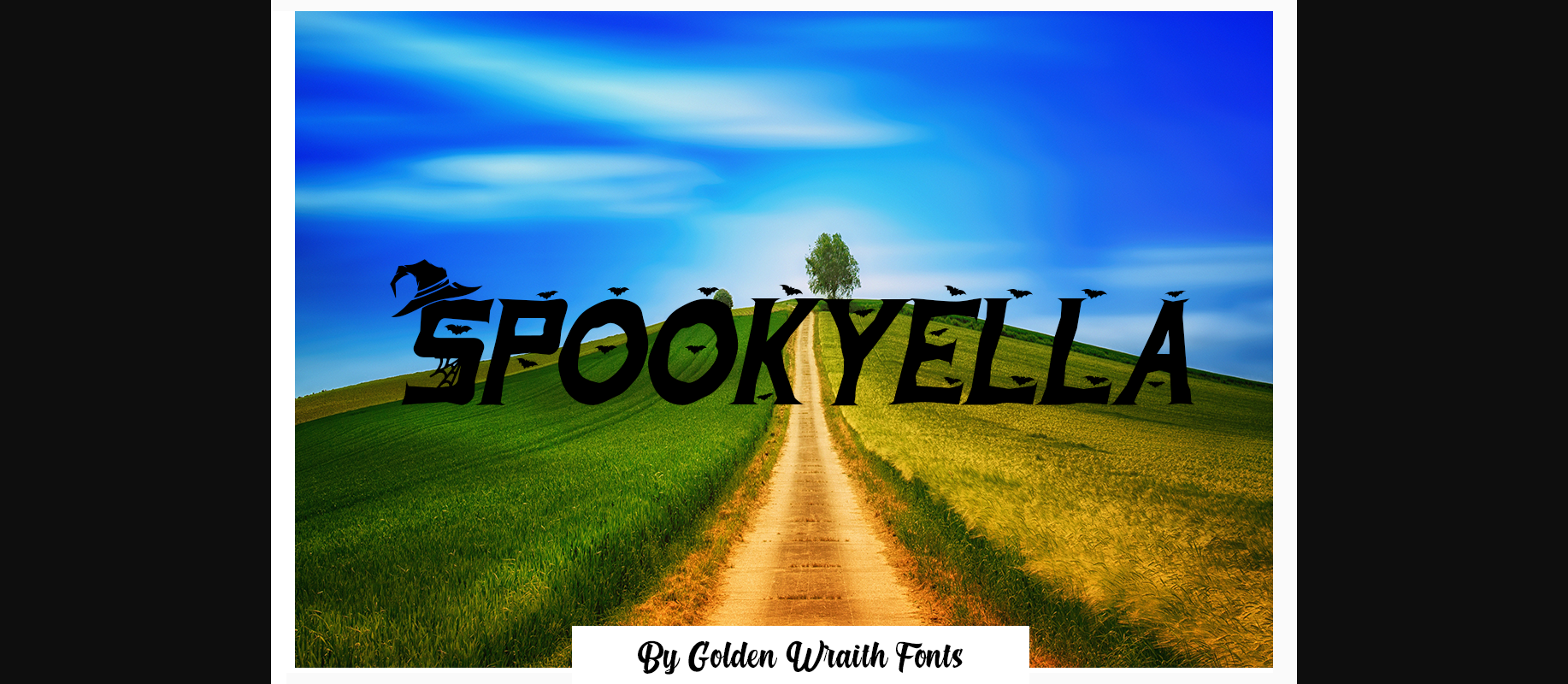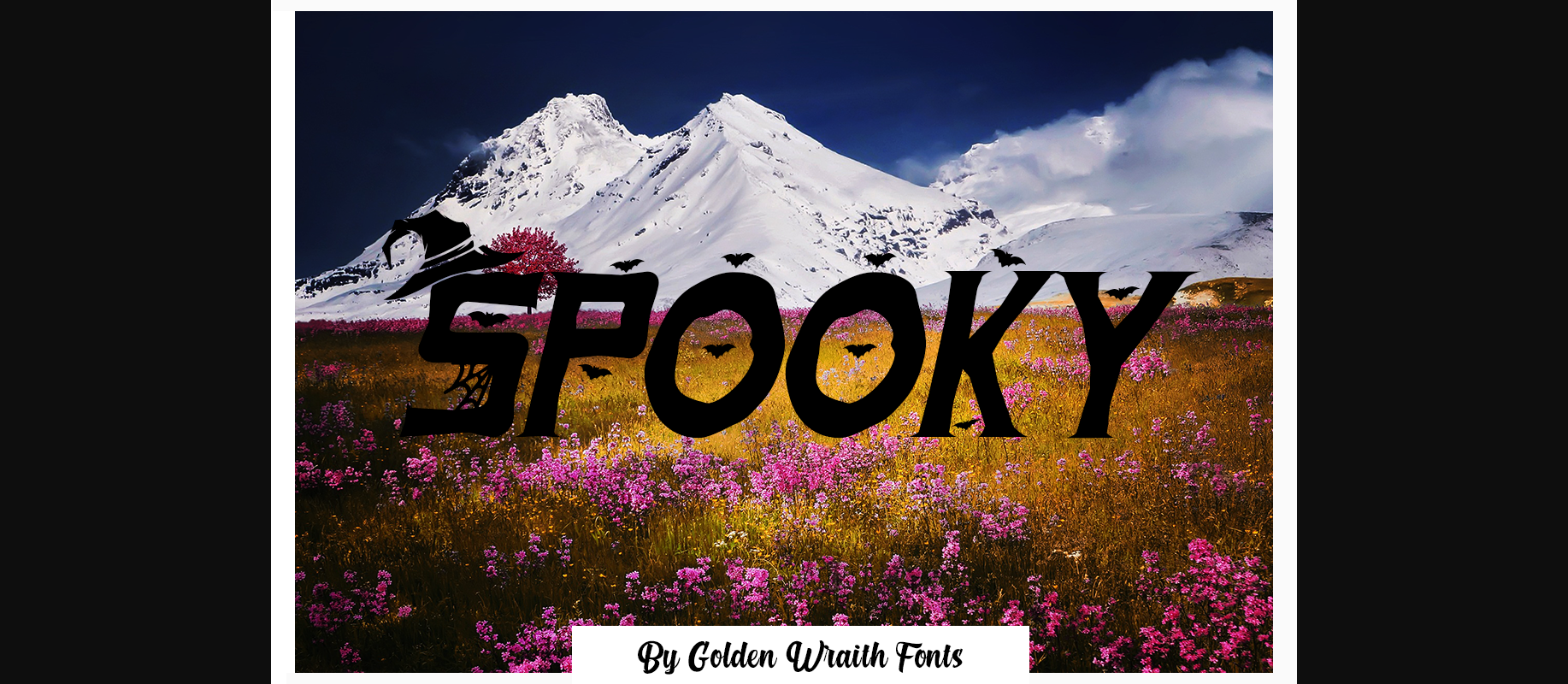
About Spookyella Font
Spookyella is a bold and creepy decorative font. Add it to your Halloween crafts, horror movie posters, t-shirts and anything else that requires a spectacular look. Spookyella is PUA encoded which means you can access all of the glyphs and swashes with ease!